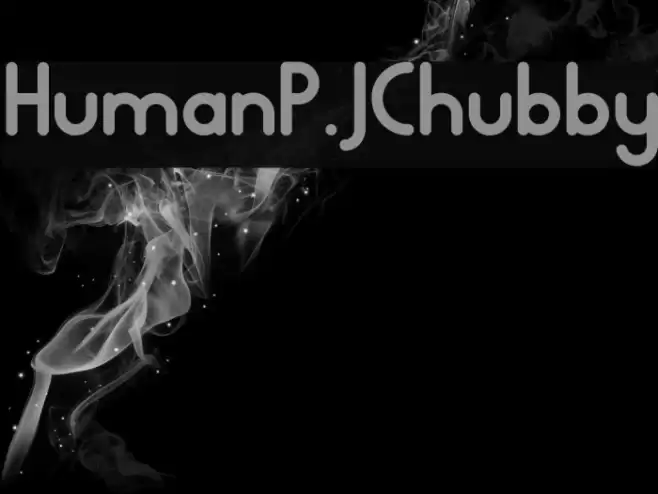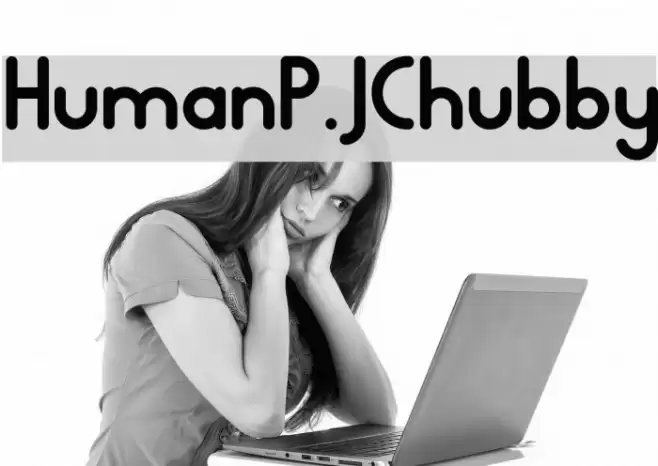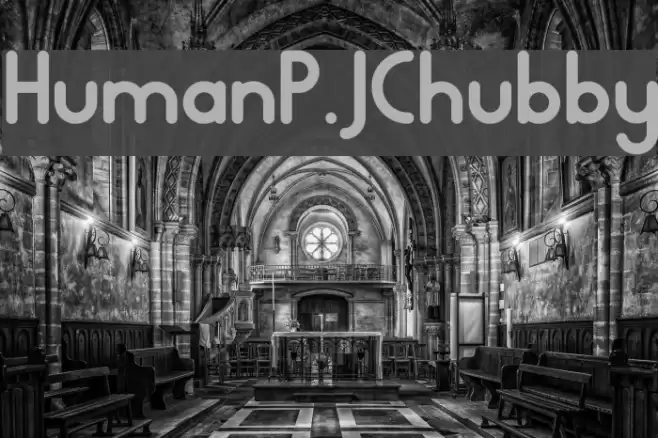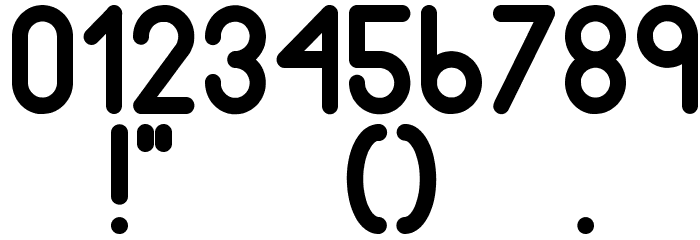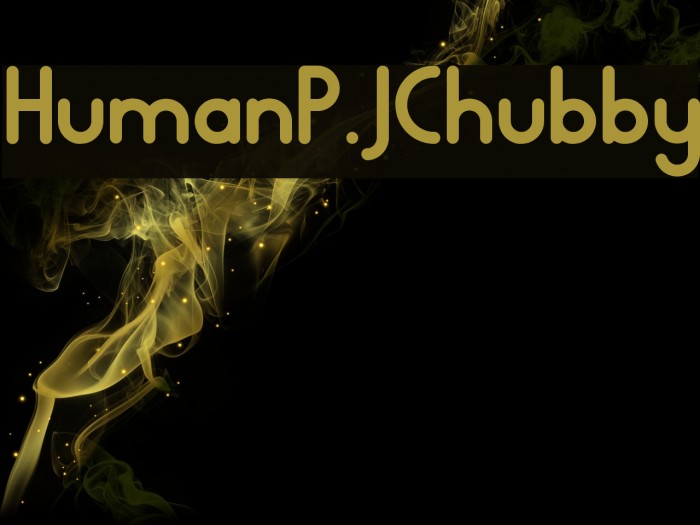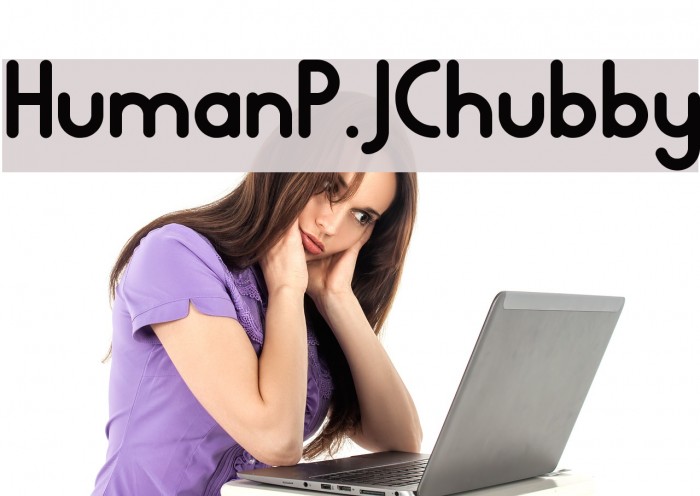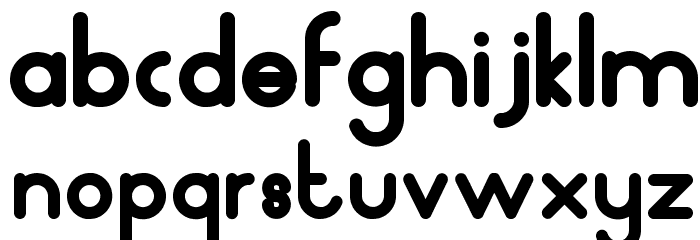
HumanP.J-Chubby Font
HumanP.J-Chubby Description
This playful and rounded typeface features bold, smooth curves and a friendly appearance. The characters are evenly weighted, with a consistent stroke width that gives it a uniform look. The rounded edges and lack of sharp angles contribute to its approachable and informal style. This font is highly legible, making it suitable for both digital and print media. Its whimsical nature is perfect for projects that require a touch of fun and creativity, while still maintaining clarity and readability. The numerals and special characters are designed to match the overall aesthetic, ensuring a cohesive look across all text elements.
A playful, rounded typeface with bold, smooth curves and a friendly appearance from Uncategorized fonts.
- Proposed Projects: Ideal for children's books, playful branding, casual invitations, and social media graphics.
- Overall Style: Playful